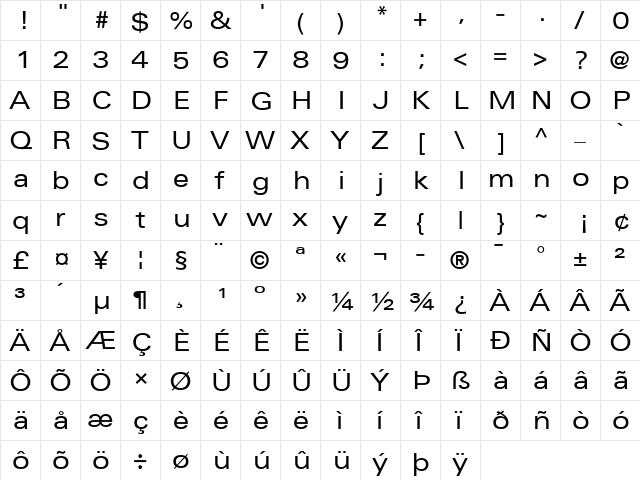
Univers Extended Regular
Design Context for Univers Extended Typeface
Univers Extended takes a measured approach to typography — its balanced proportions and neutral character make it a reliable workhorse for both digital and print work.
Pro Tip: Use Univers Extended in both headline and body roles to test its range before committing to a single application.